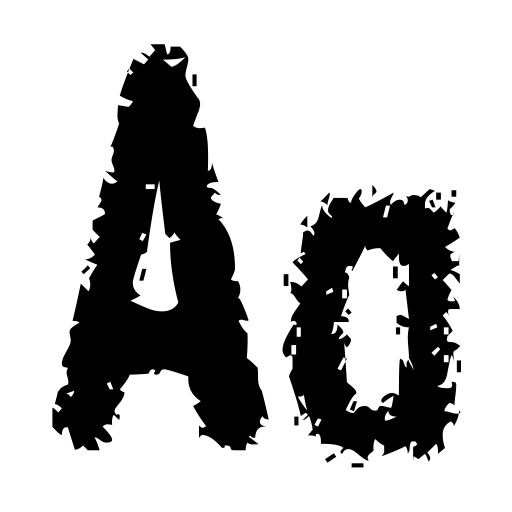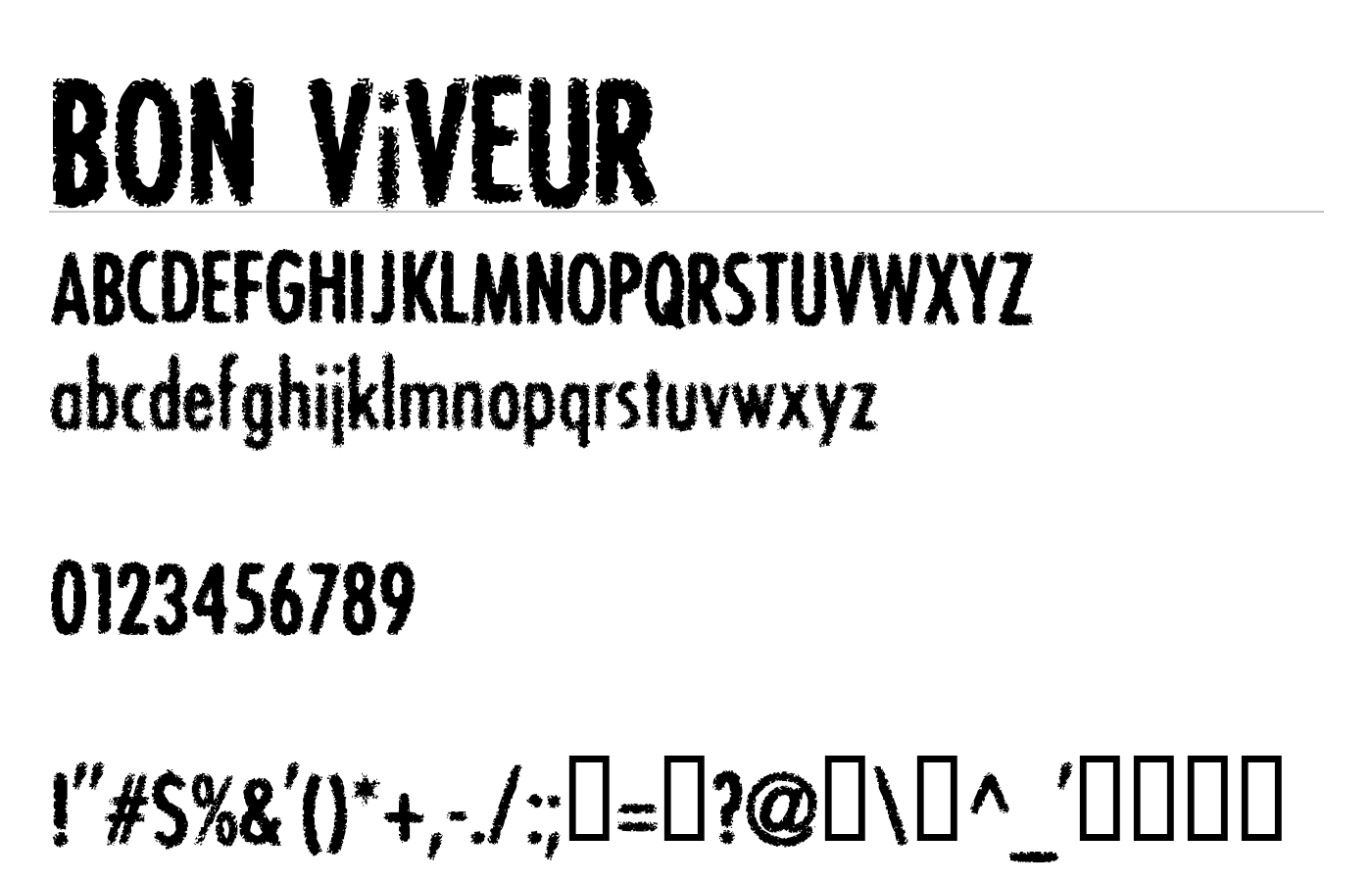
BON ViVEUR is a bold, textured sans serif font with a gritty, distressed appearance that gives it a raw, edgy feel. Its tall, narrow letterforms combined with rough, uneven strokes make it ideal for designs that need a strong, impactful, and urban vibe. This font works best for eye-catching headlines, posters, and branding that seeks to convey energy and a rebellious spirit.
BON ViVEUR Font
About BON ViVEUR Font